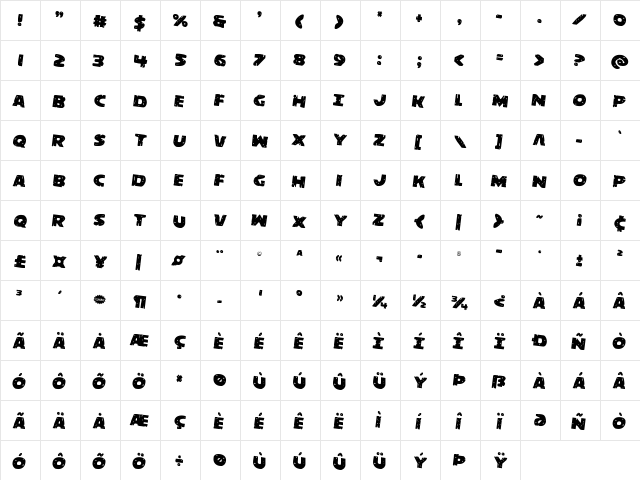
Behemuth Rotated 2 Regular Font Preview
Behemuth Rotated 2 Regular
Design Context for Behemuth Rotated 2 Typeface
Behemuth Rotated 2 is a composed and adaptable typeface that performs quietly and consistently across a wide range of design contexts.